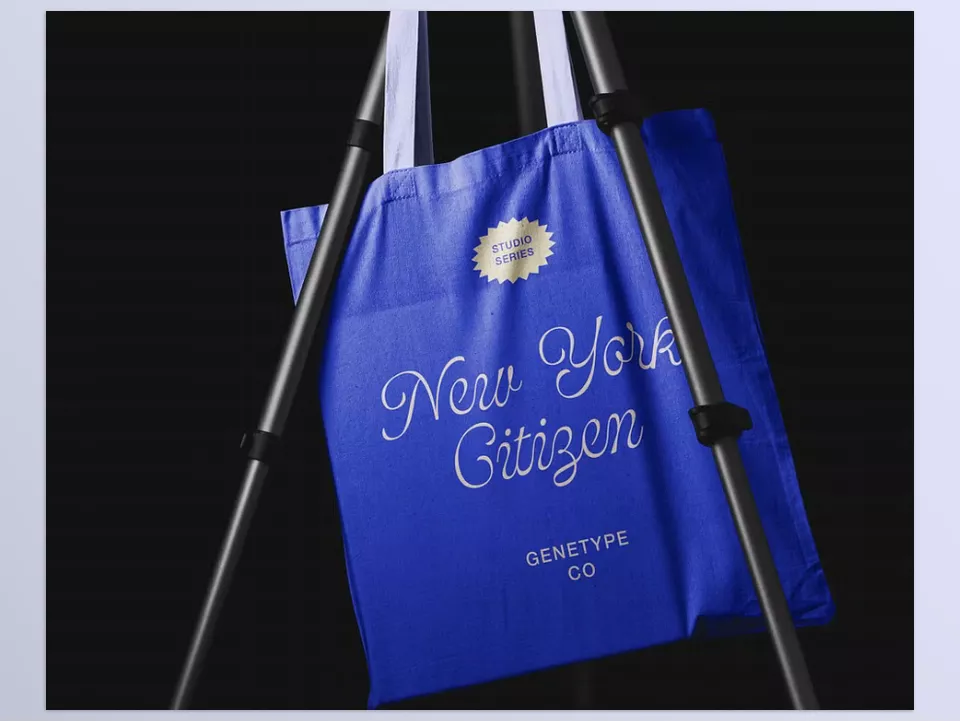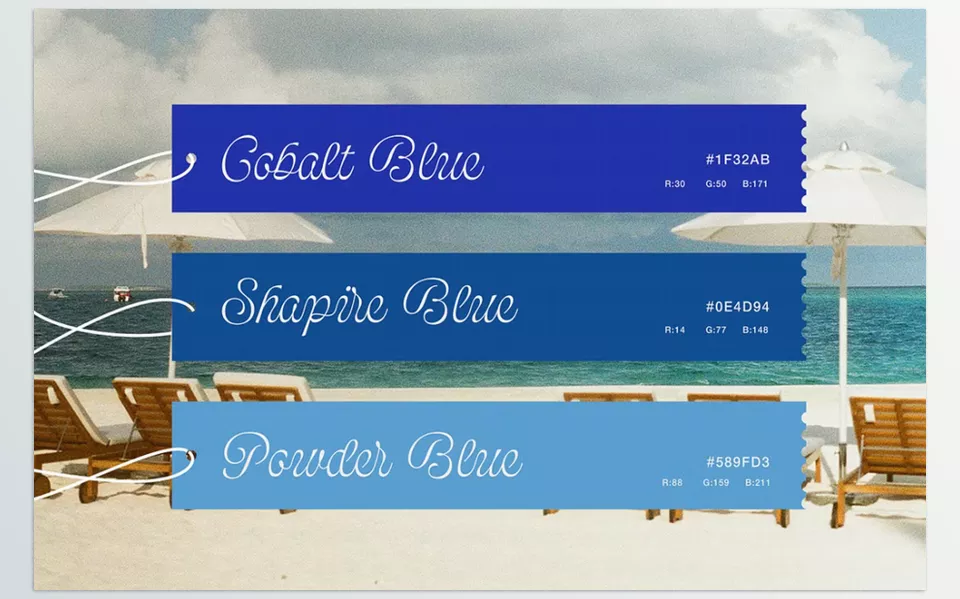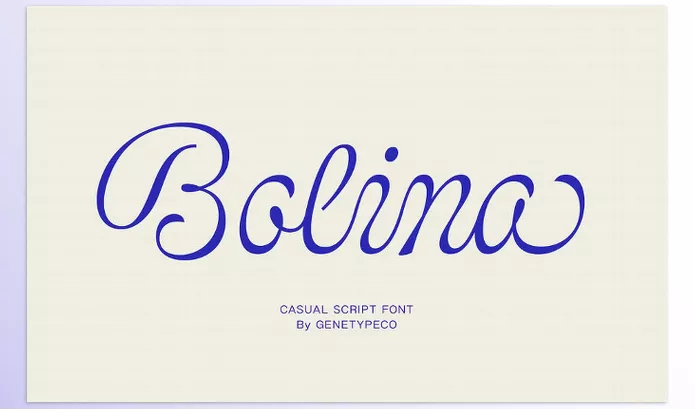
Bolina Casual Script Font is a stylish modern script typeface with a relaxed appearance. It is great for logos, branding, social media graphics, and invitations, adding a fresh dynamic to any undertaking.
Genetype – Bolina Casual Script Font Features
• Modern Script Style: Features a relaxed, stylish feel with clean lines.
• Versatile Use: Perfect for social media, newspapers, posters, and branding materials like logos and invitations.
• Effortless Elegance: Adds fresh energy to any design.
• Personality and Flair: Makes projects more captivating and brimming with life.
Image 1: Speak elegance with modern scripts that add personality to your designs.
Bolina Casual Script Font - Speak elegance with modern scripts that add personality to your designs.
Image 2: Enhance your presentation with a font that is elegant enough for advanced branding yet versatile for any use.
Bolina Casual Script Font - Enhance your presentation with a font that is elegant enough for advanced branding yet versatile for any use.